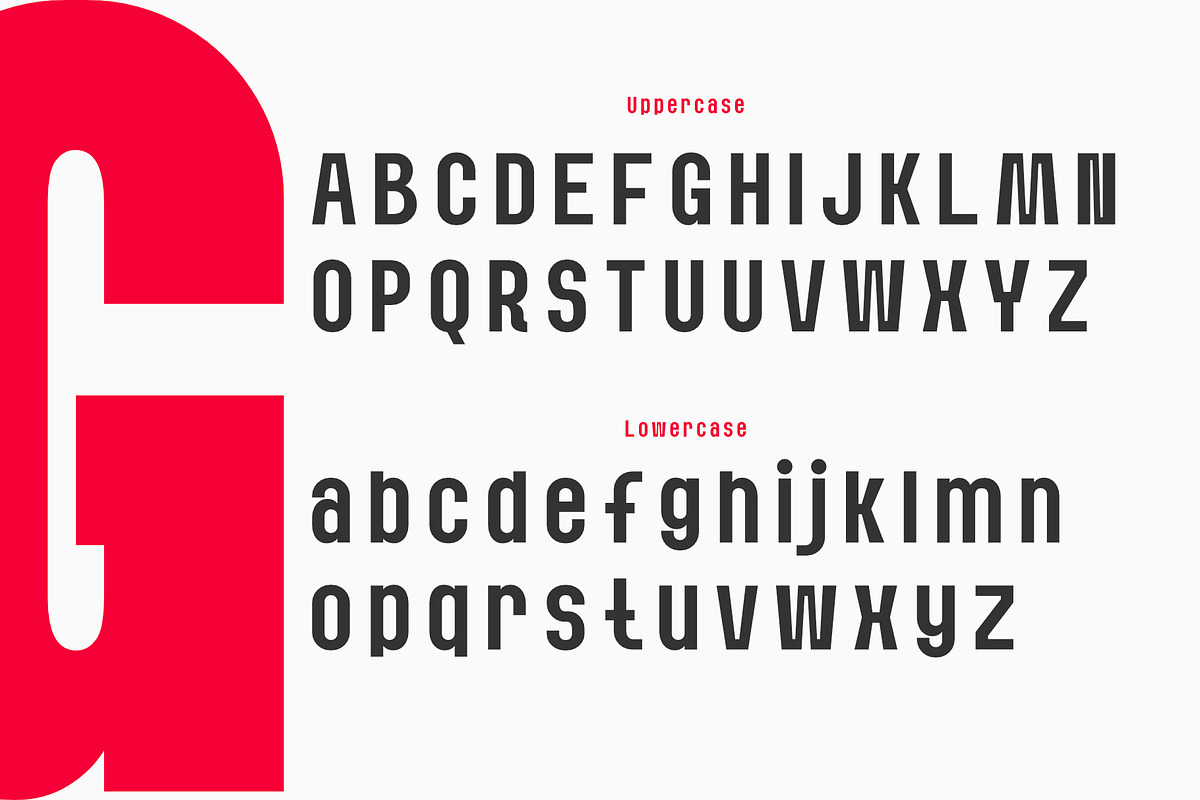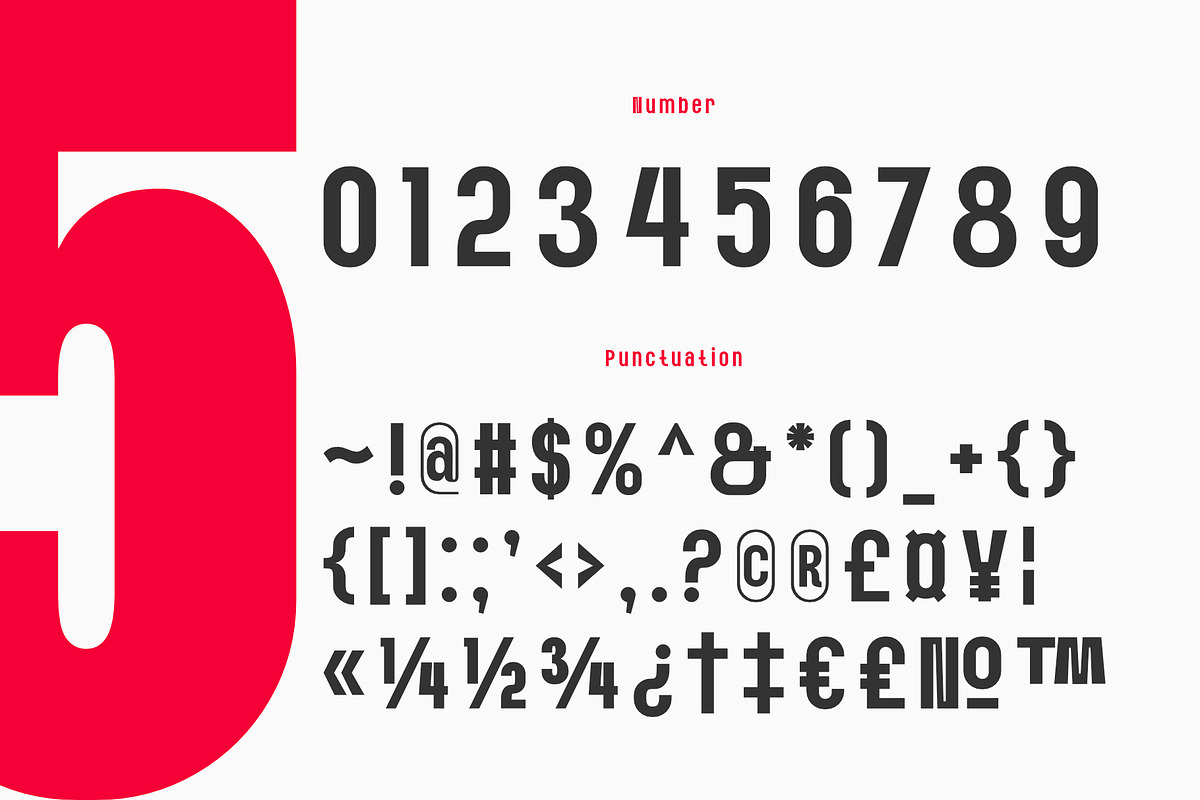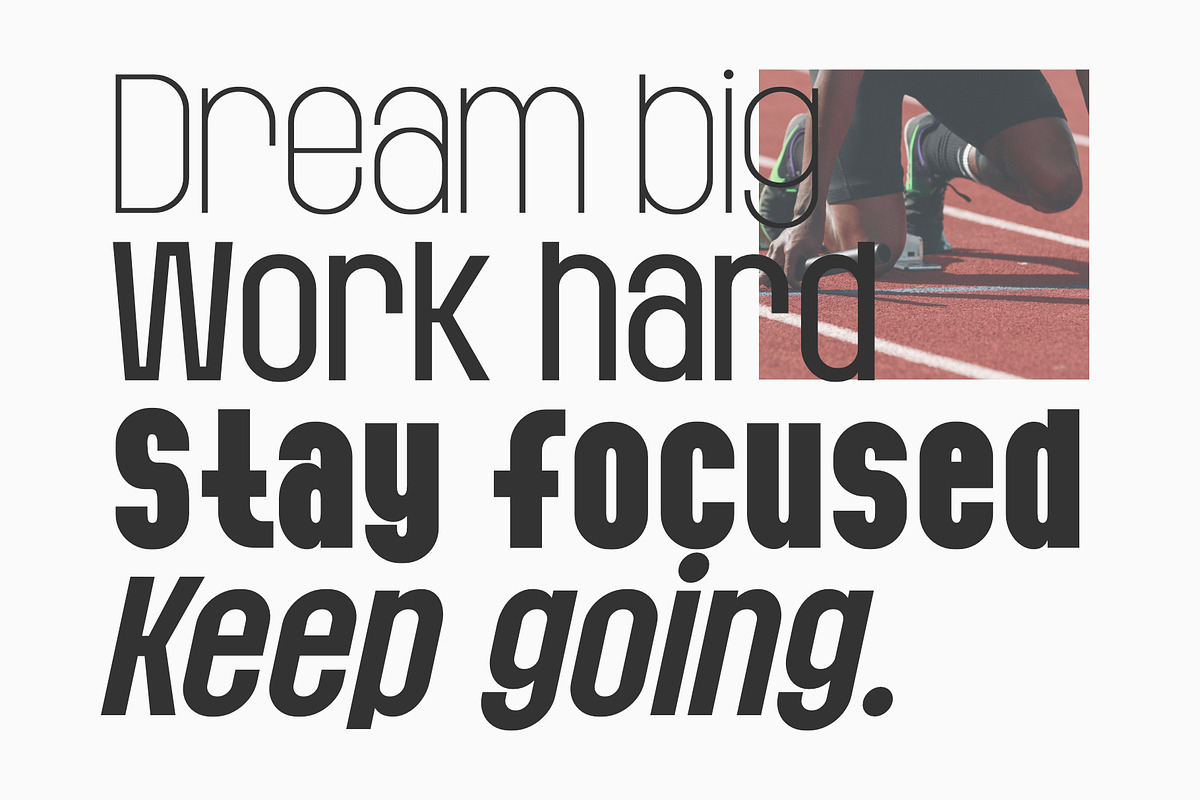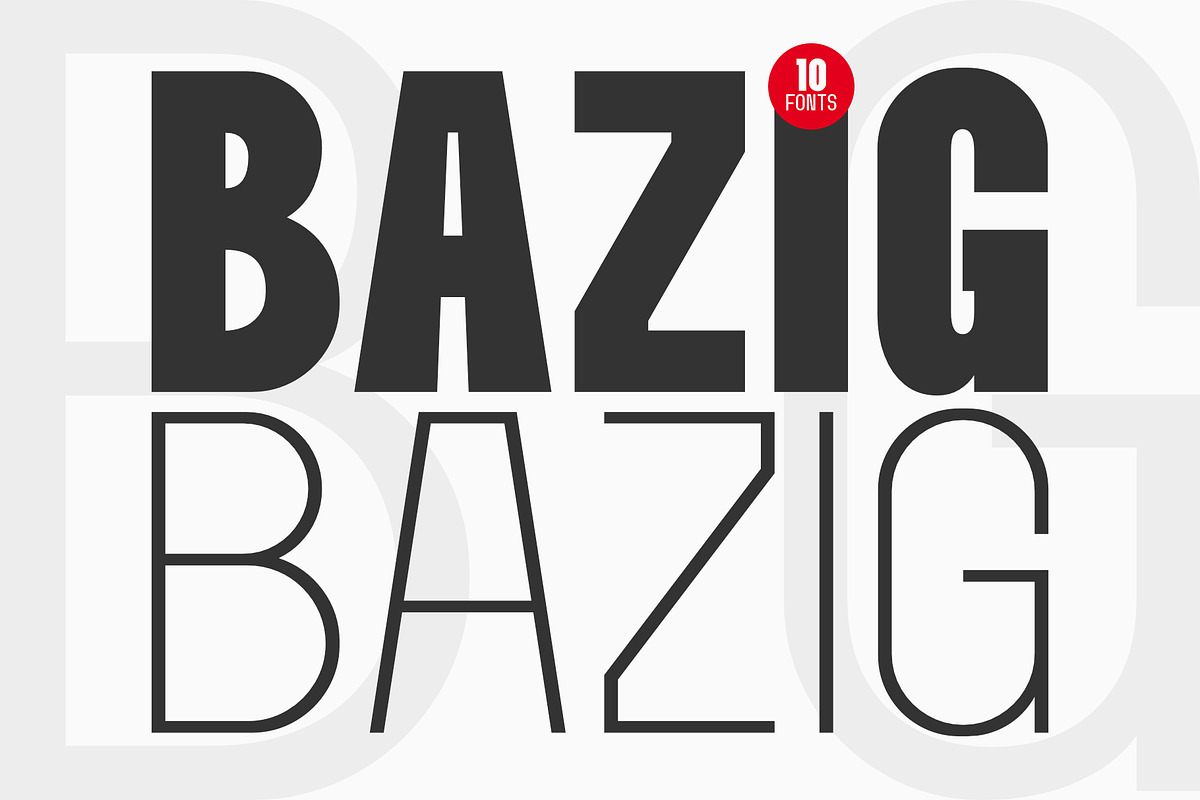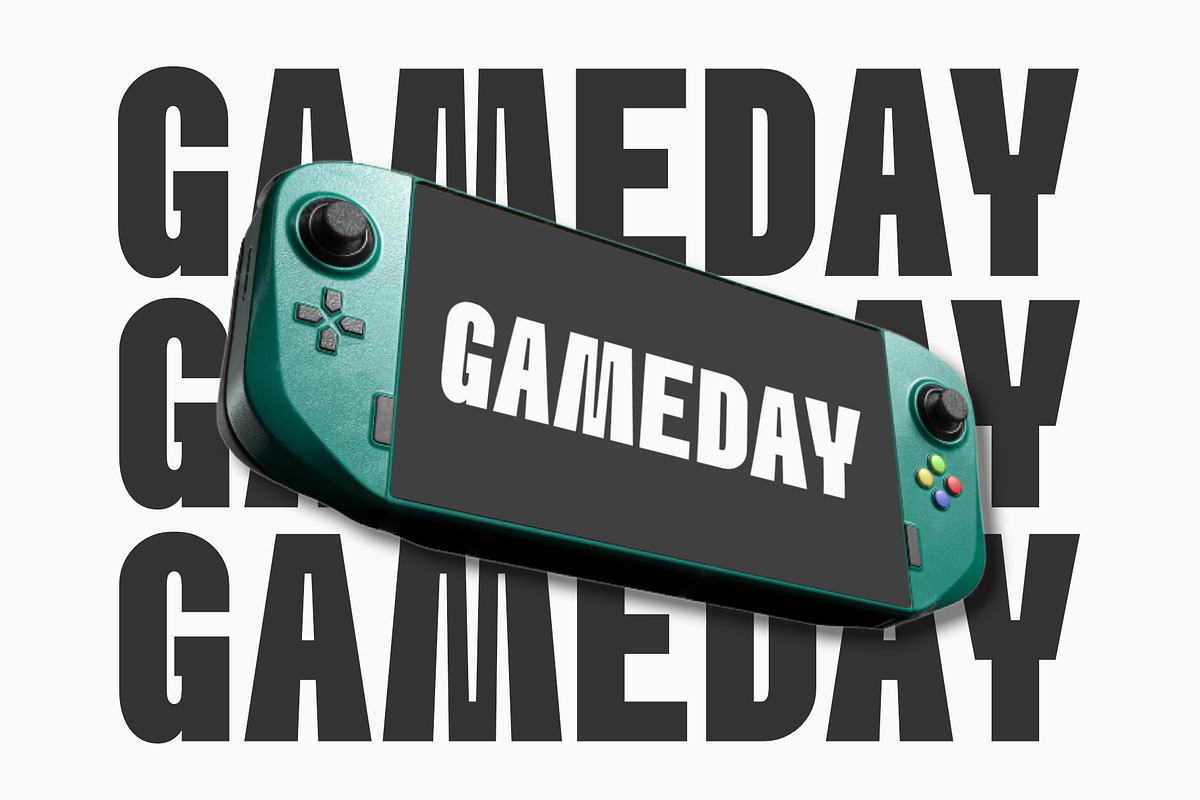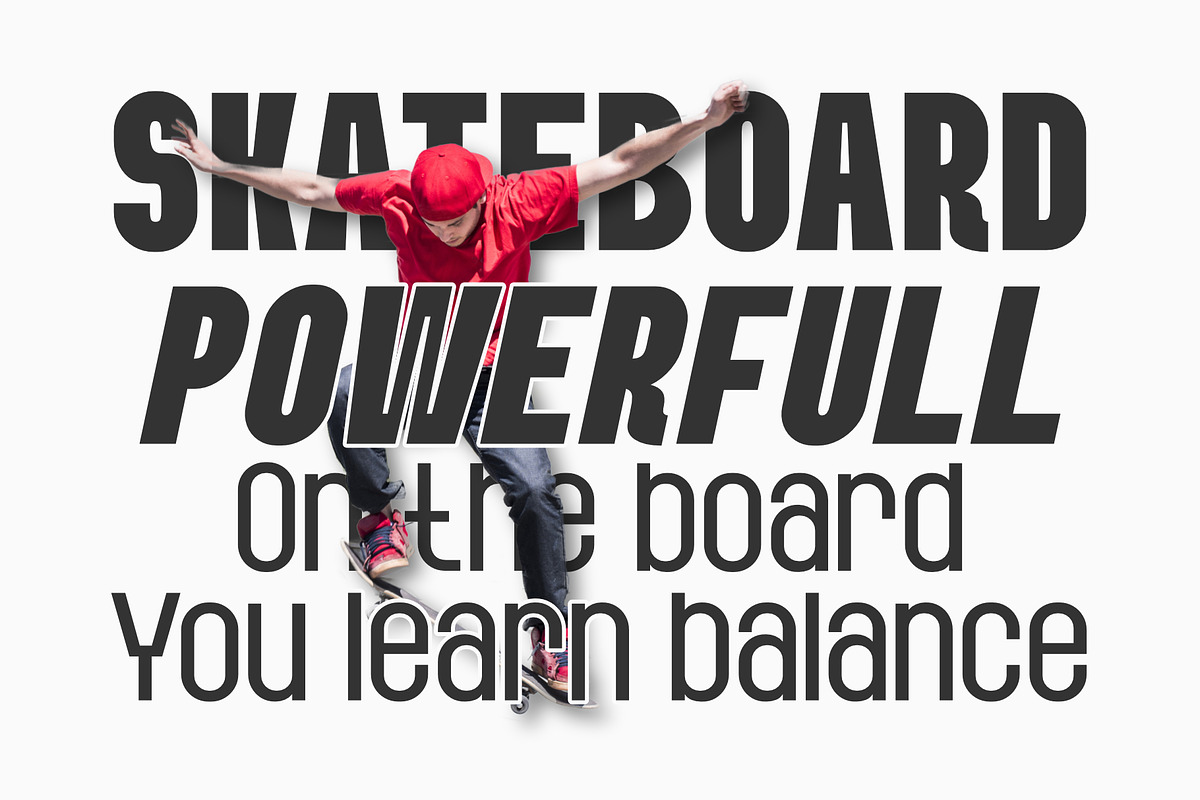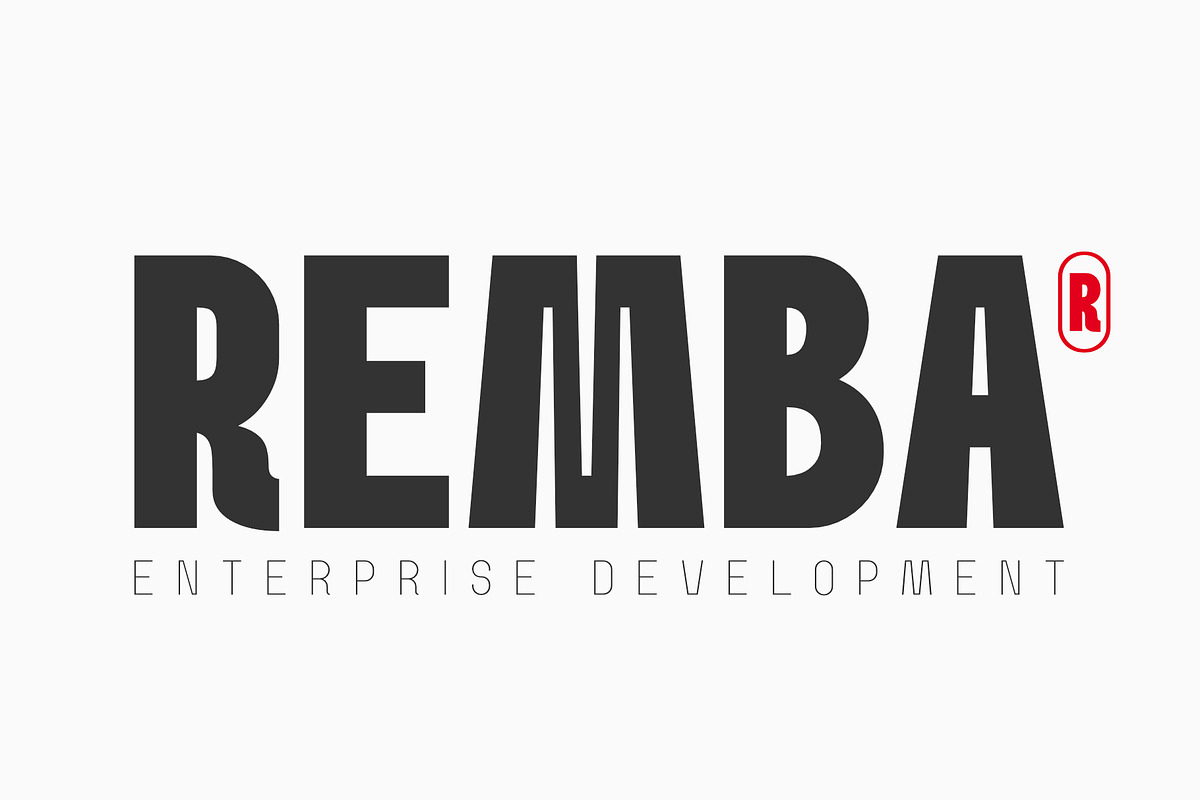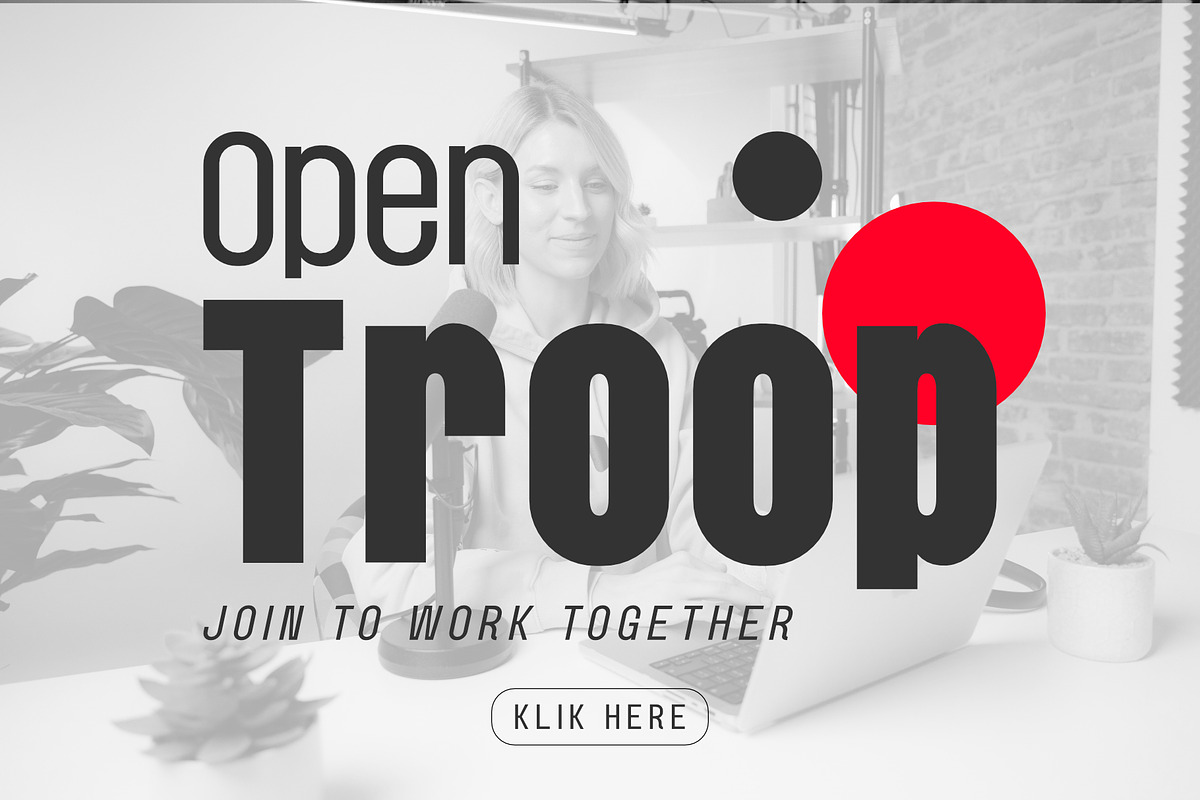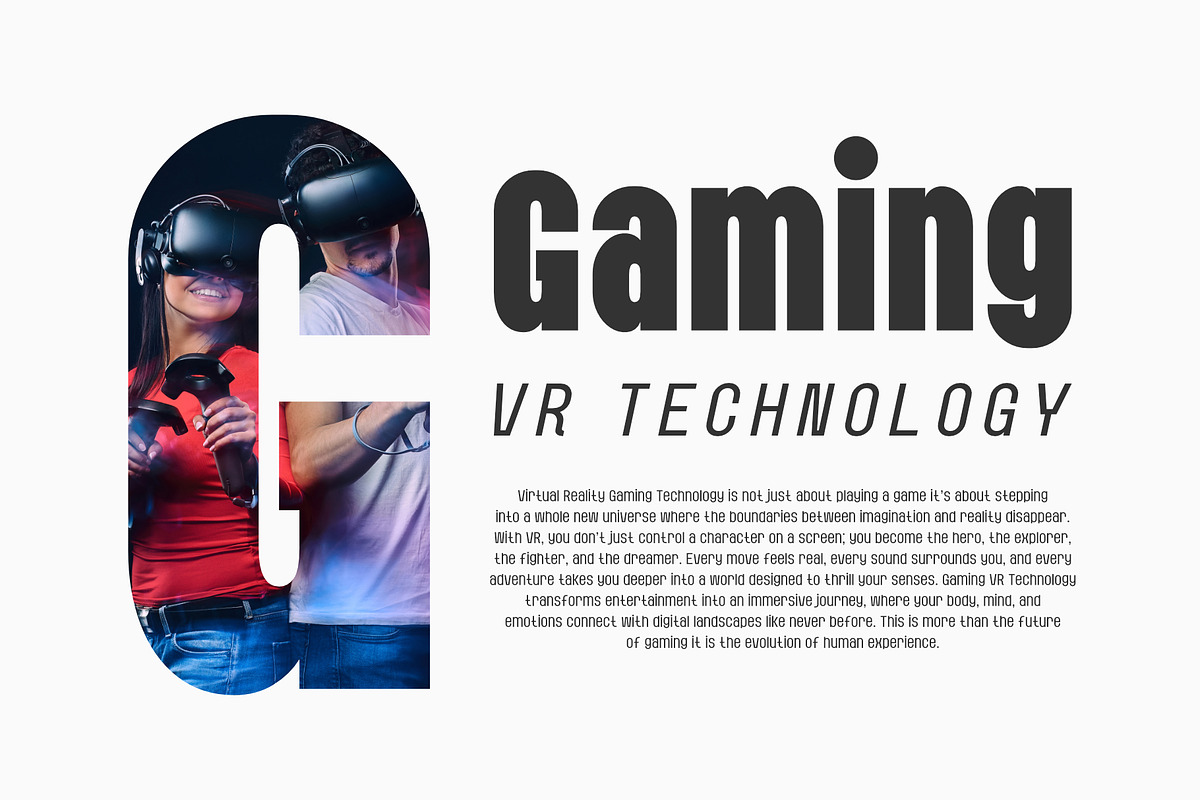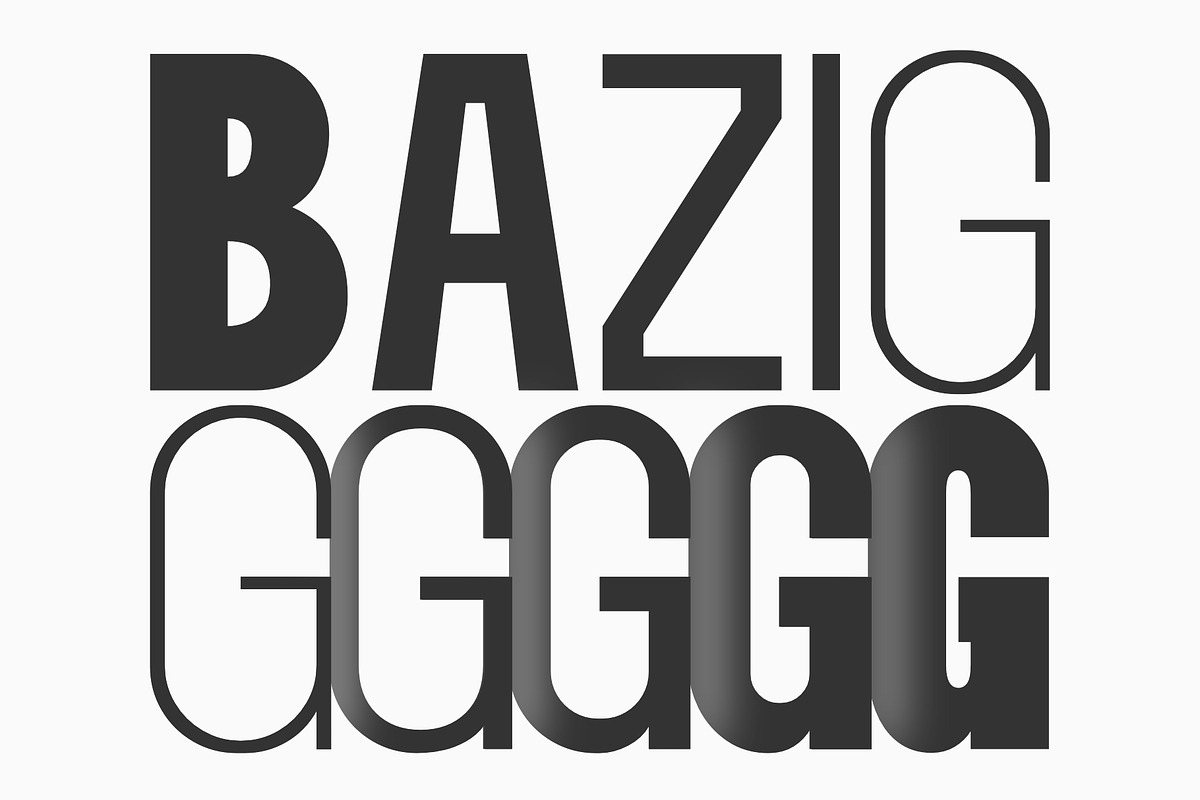
Bazig - Modern Sans Serif Family
Bazig Modern Sans Serif Family – Thin to Bold & Italic Bazig is a modern sans serif typeface family with a clean, elegant, and versatile look. It comes in styles from Thin to Bold, complete with Italic versions, giving you full flexibility for any design project.
Designed with a perfect balance between sharp lines and minimalist forms, Bazig is ideal for both professional and creative use, such as:
Branding & Logo Design
Headlines & Editorials
Posters & Banners
Websites & Mobile Apps
Presentations & Print Materials
10 Styles (Thin to Bold + Italic)
Includes uppercase, lowercase, numbers, and punctuation
With its wide range of weights and italics, Bazig makes it easy to build strong, modern, and aesthetic typography for any project.